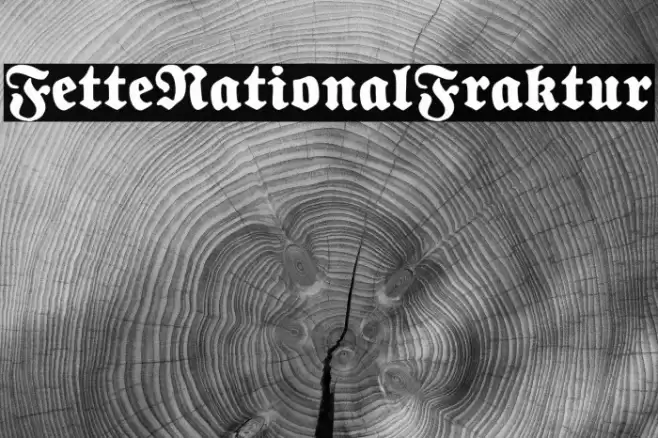
FetteNationalFraktur Font
FetteNationalFraktur Description
This font features a traditional blackletter style, characterized by its ornate and intricate letterforms. The uppercase letters exhibit a strong, bold presence with sharp angles and decorative flourishes, typical of Gothic script. The lowercase letters maintain a consistent style, with a slightly more rounded appearance, yet still retaining the elaborate detailing. Numbers are bold and follow the same stylistic cues, ensuring uniformity across all characters. Special characters are equally ornate, fitting seamlessly into the overall aesthetic. This font exudes a historical and formal vibe, reminiscent of medieval manuscripts and traditional German typography.
A bold, ornate blackletter font with intricate detailing, reminiscent of medieval scripts from Uncategorized fonts.
- Proposed Projects: Ideal for projects requiring a historical or formal touch, such as certificates, invitations, or branding for traditional products.